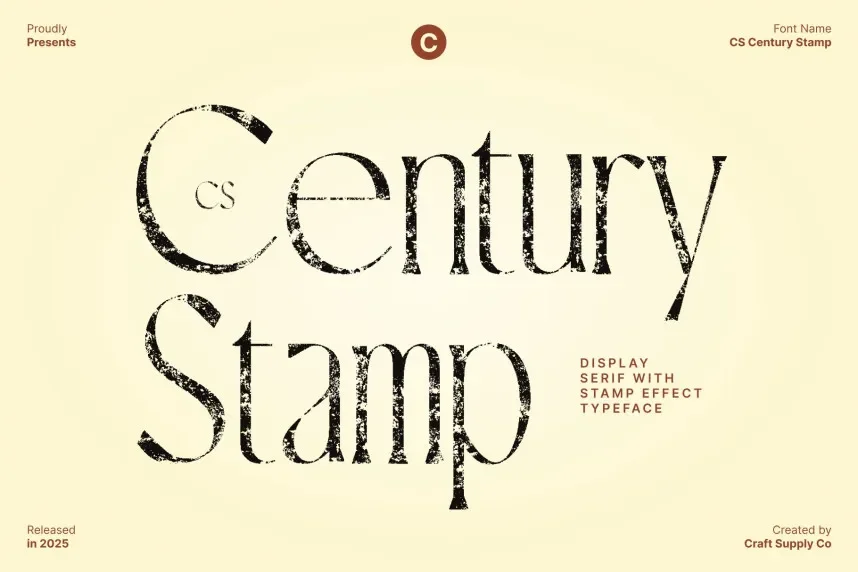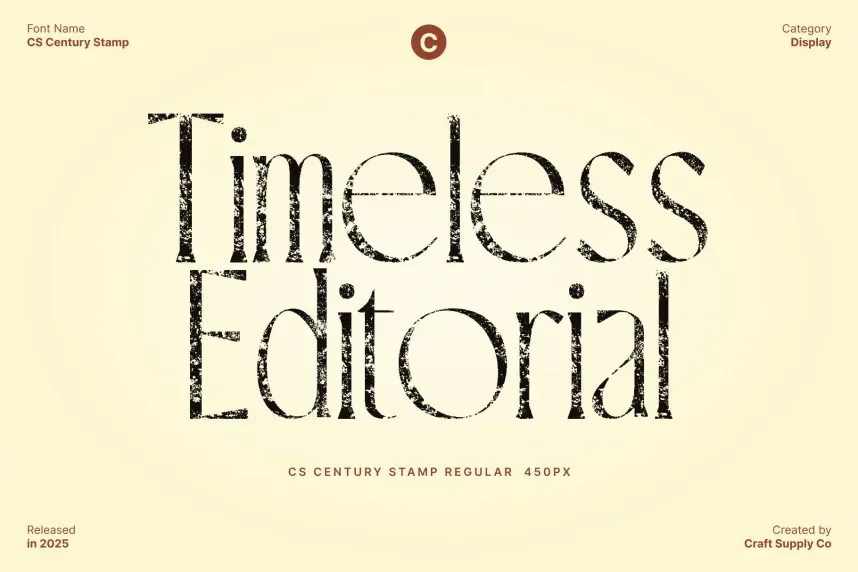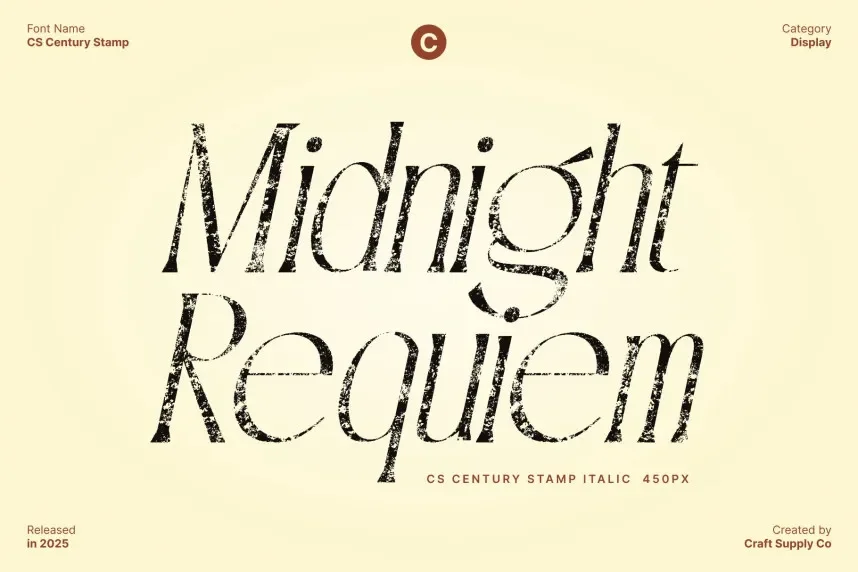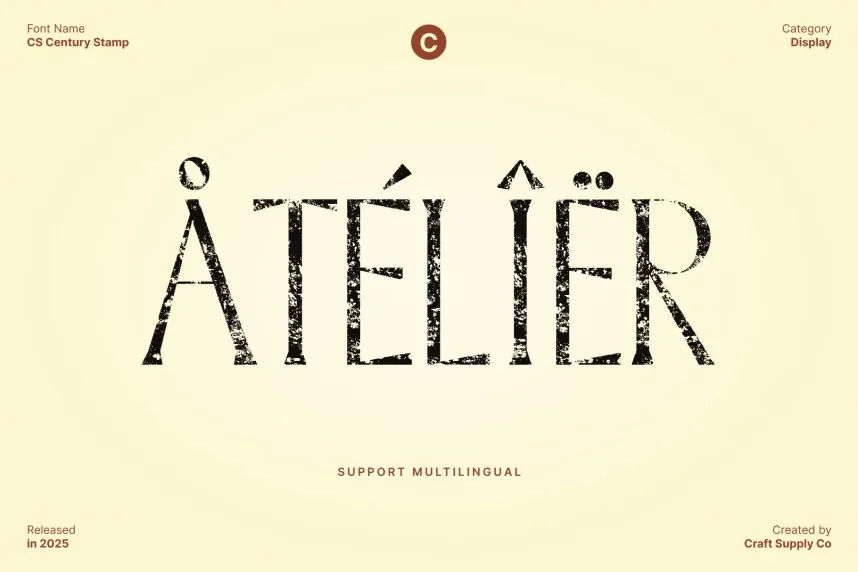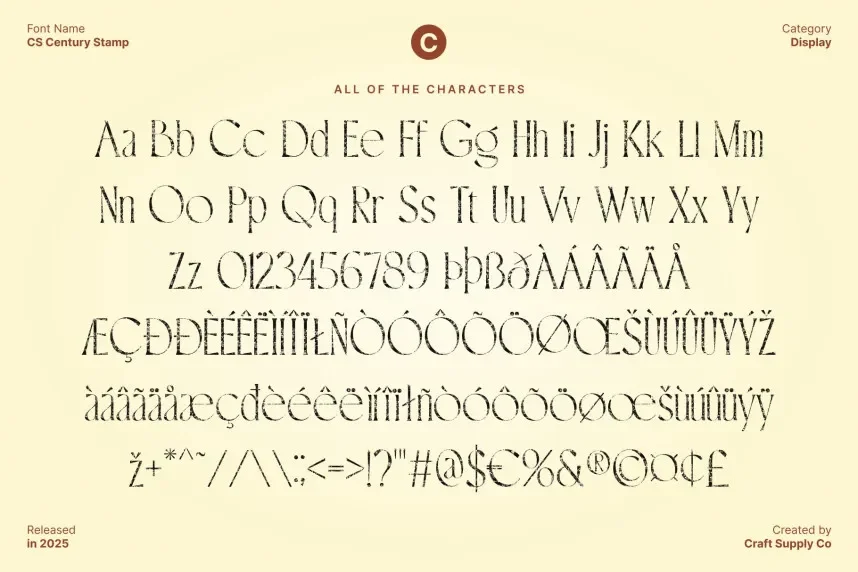
CS Century Stamp Font is a bold, serif typeface that gives a vintage, stamped appearance, ideal for designs that need to evoke a sense of authority and timelessness. Its strong stroke contrast and sturdy letterforms make it perfect for branding, headlines, and posters.
The font’s distinctive stamp-like effect with rough edges creates a unique look, making it suitable for invitations, flyers, or logo design. The font is available in TTF and OTF formats and comes with a commercial-use license. Be sure to verify the license for any commercial use.